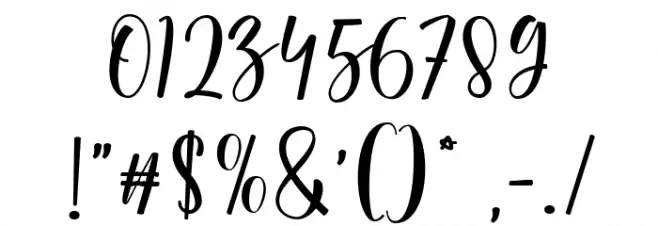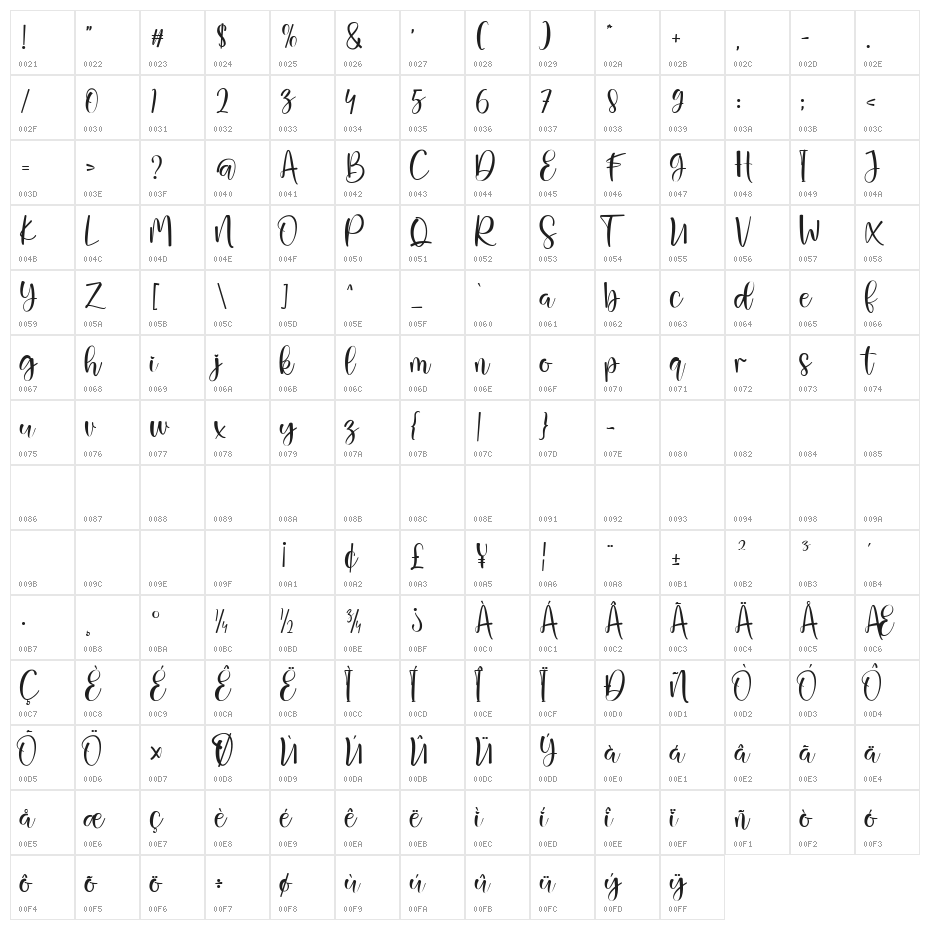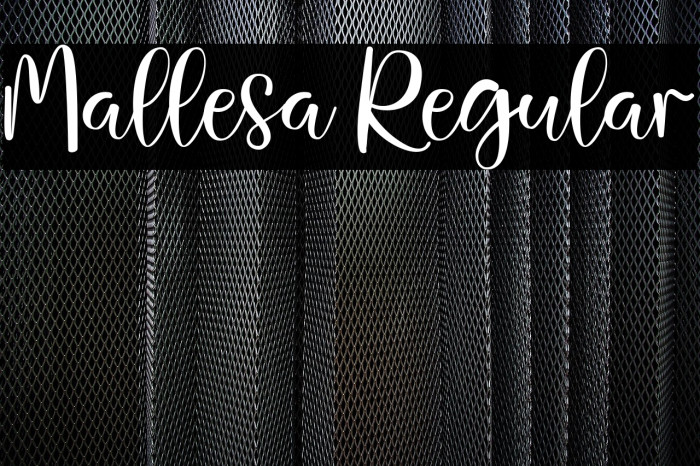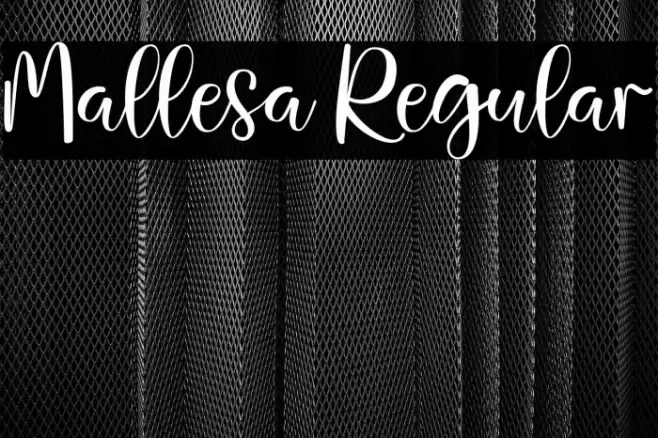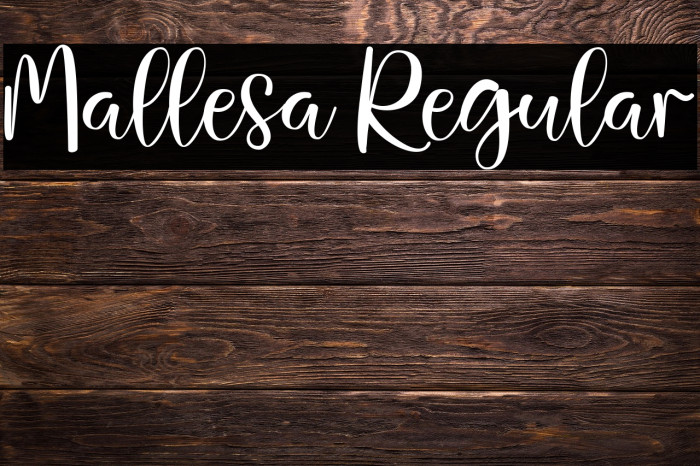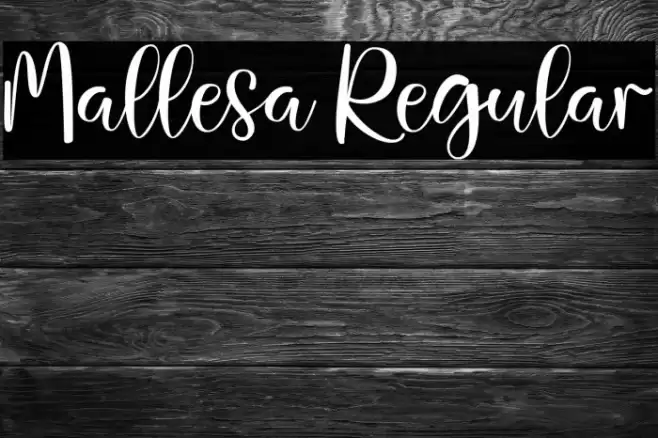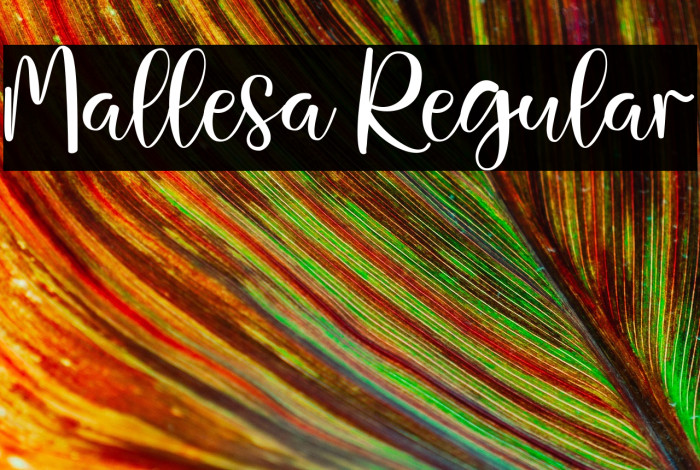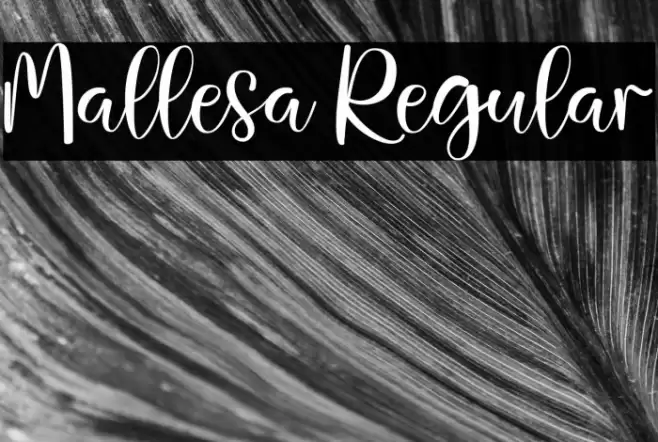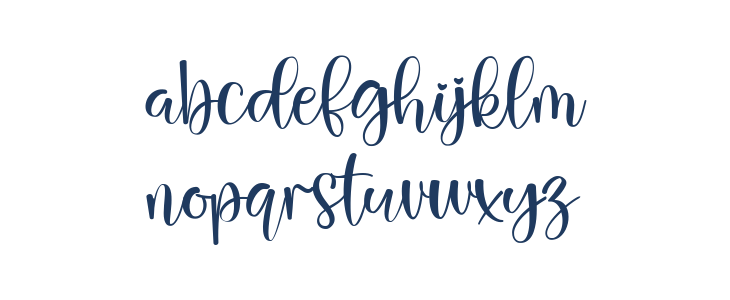
Mallesa Regular Font
Mallesa Regular Description
This font features a lively and expressive handwritten style, characterized by its flowing, cursive letterforms. The uppercase letters are bold and dynamic, with a playful yet elegant flair. The lowercase letters maintain a consistent rhythm, enhancing readability while retaining a personal touch. Numbers and special characters are crafted with the same attention to detail, ensuring a cohesive look across all text elements. The overall design exudes a sense of creativity and warmth, making it suitable for projects that require a personal or artistic touch.
ContrastMedium
Overall StyleDecorative
Use CaseLogos, Headlines, Creative projects
Proposed ProjectsIdeal for greeting cards, invitations, personal branding, and creative projects that require a personal touch.